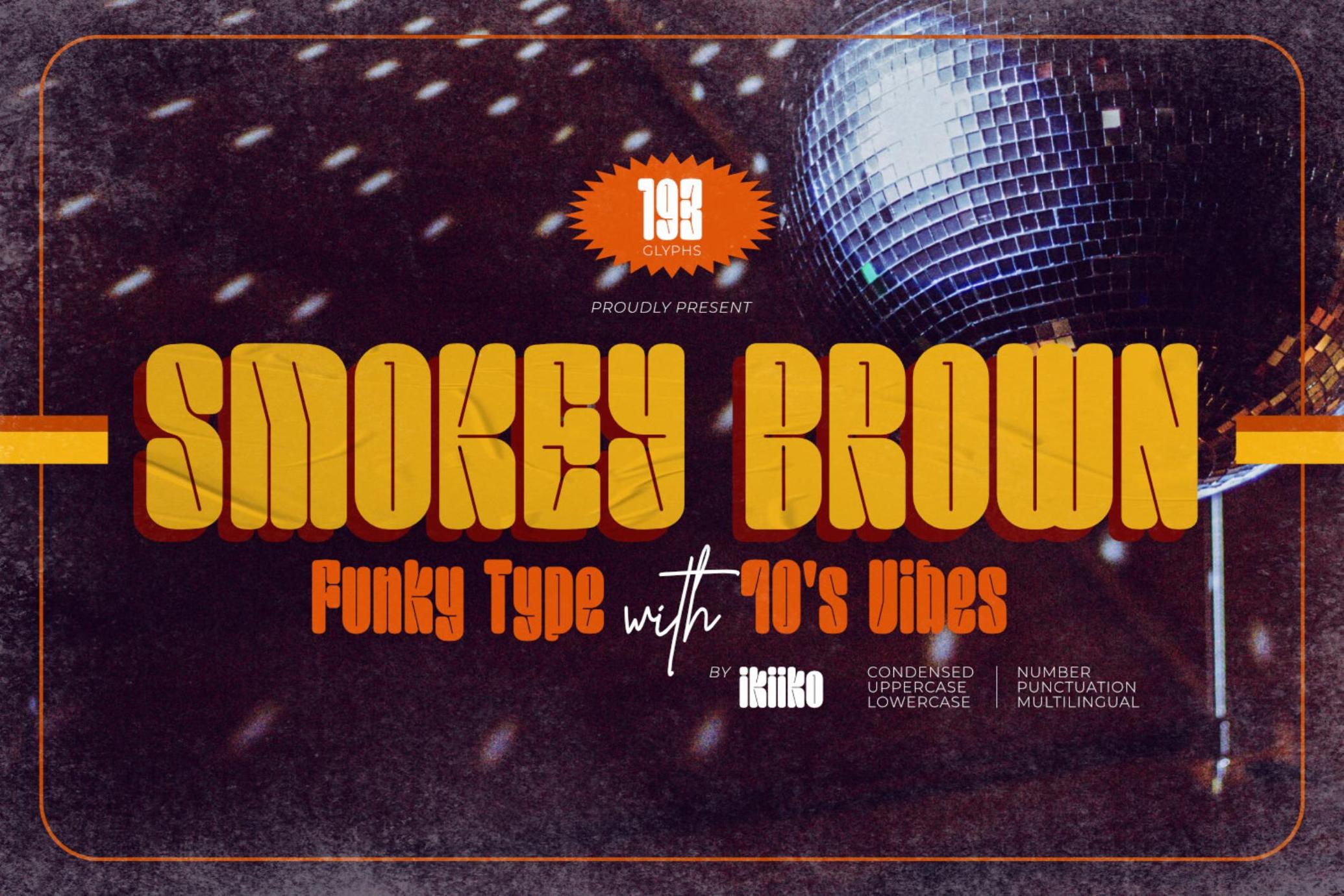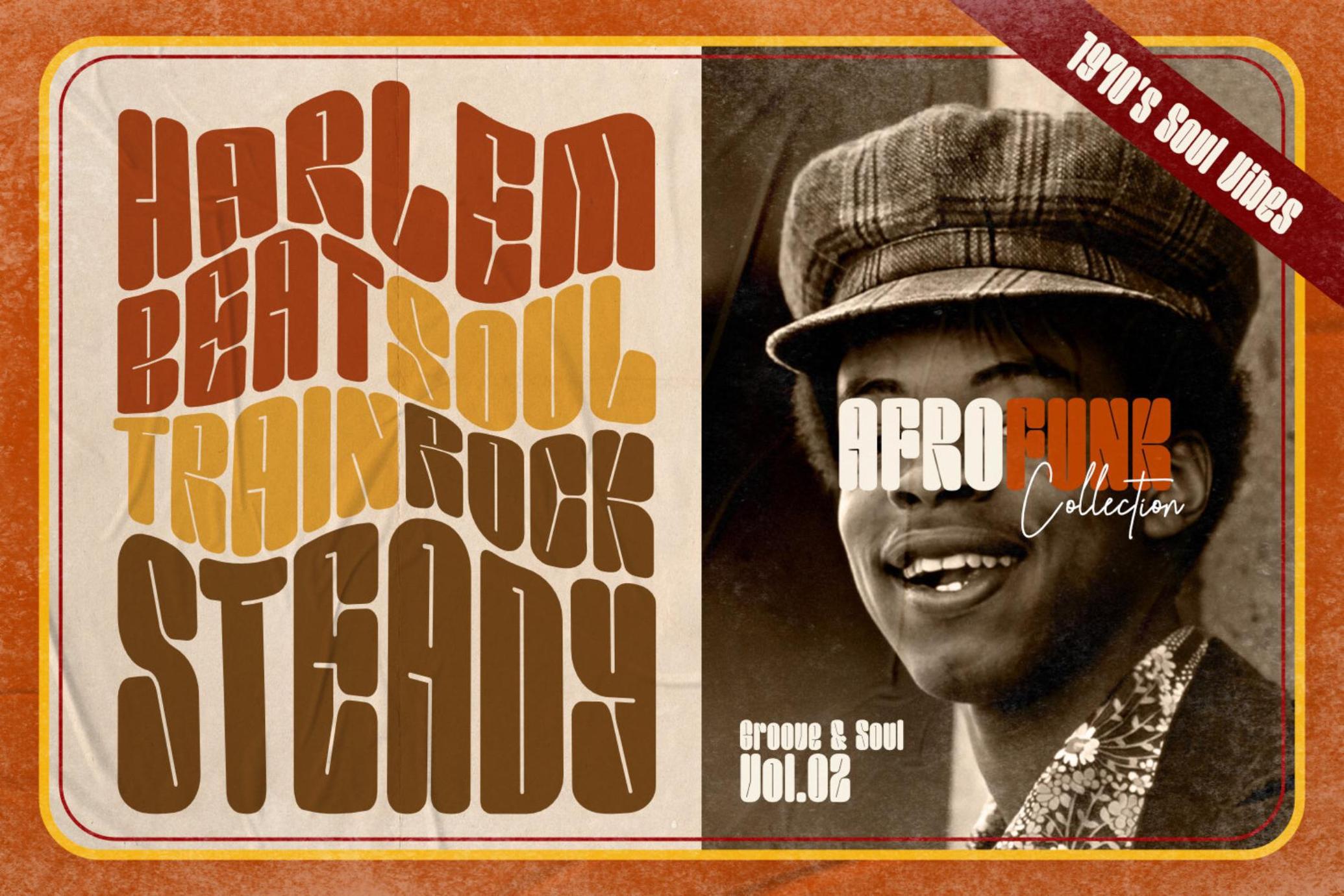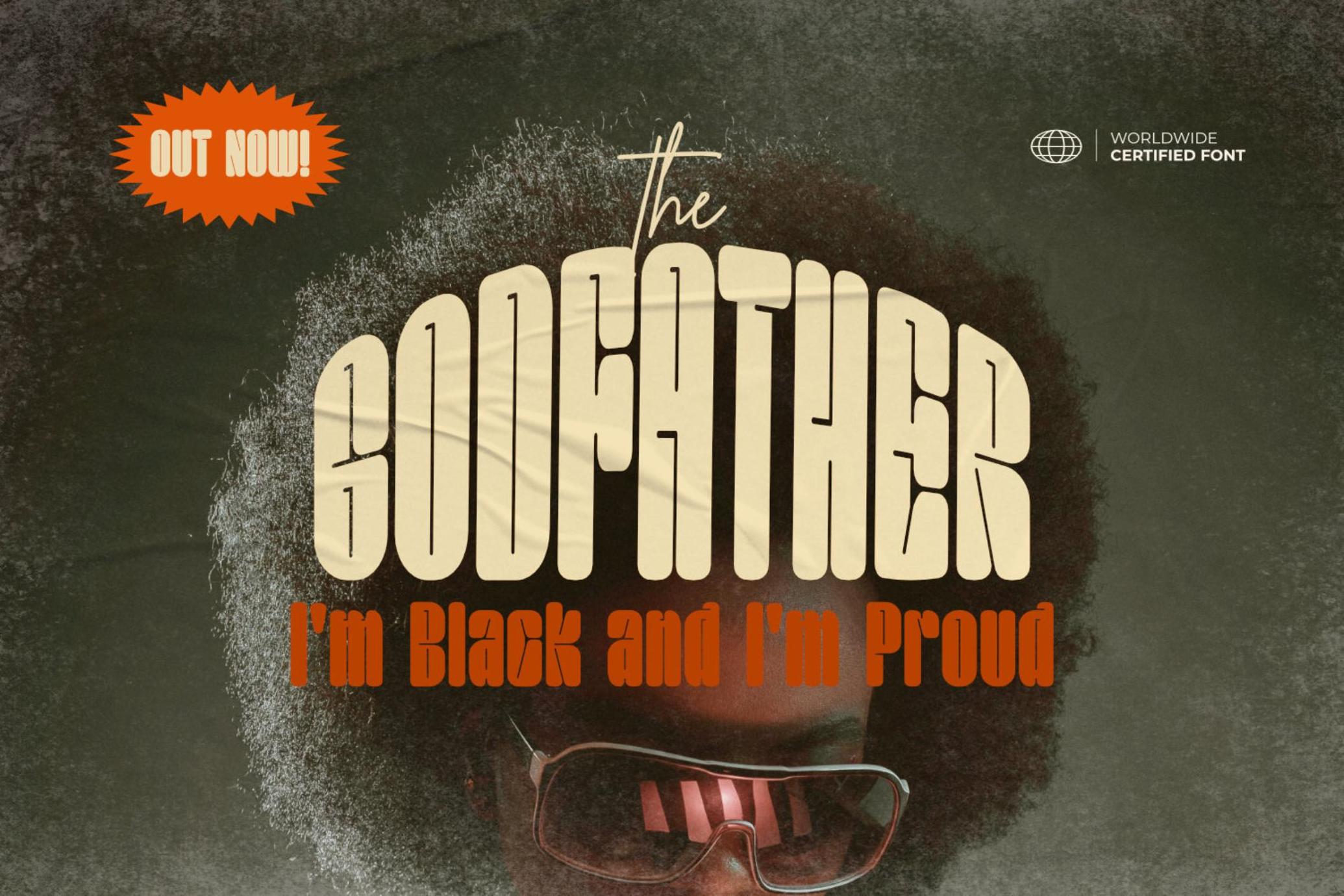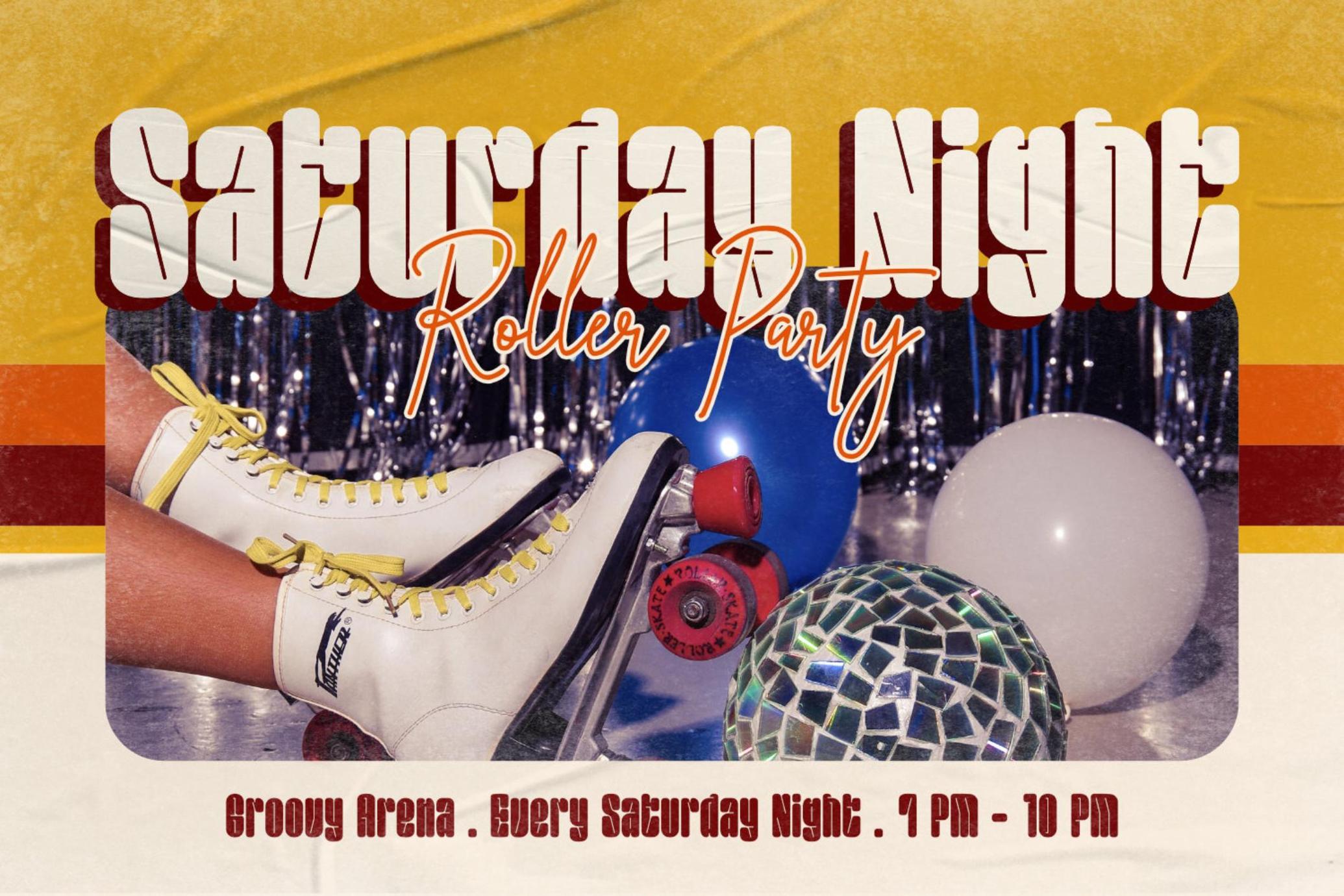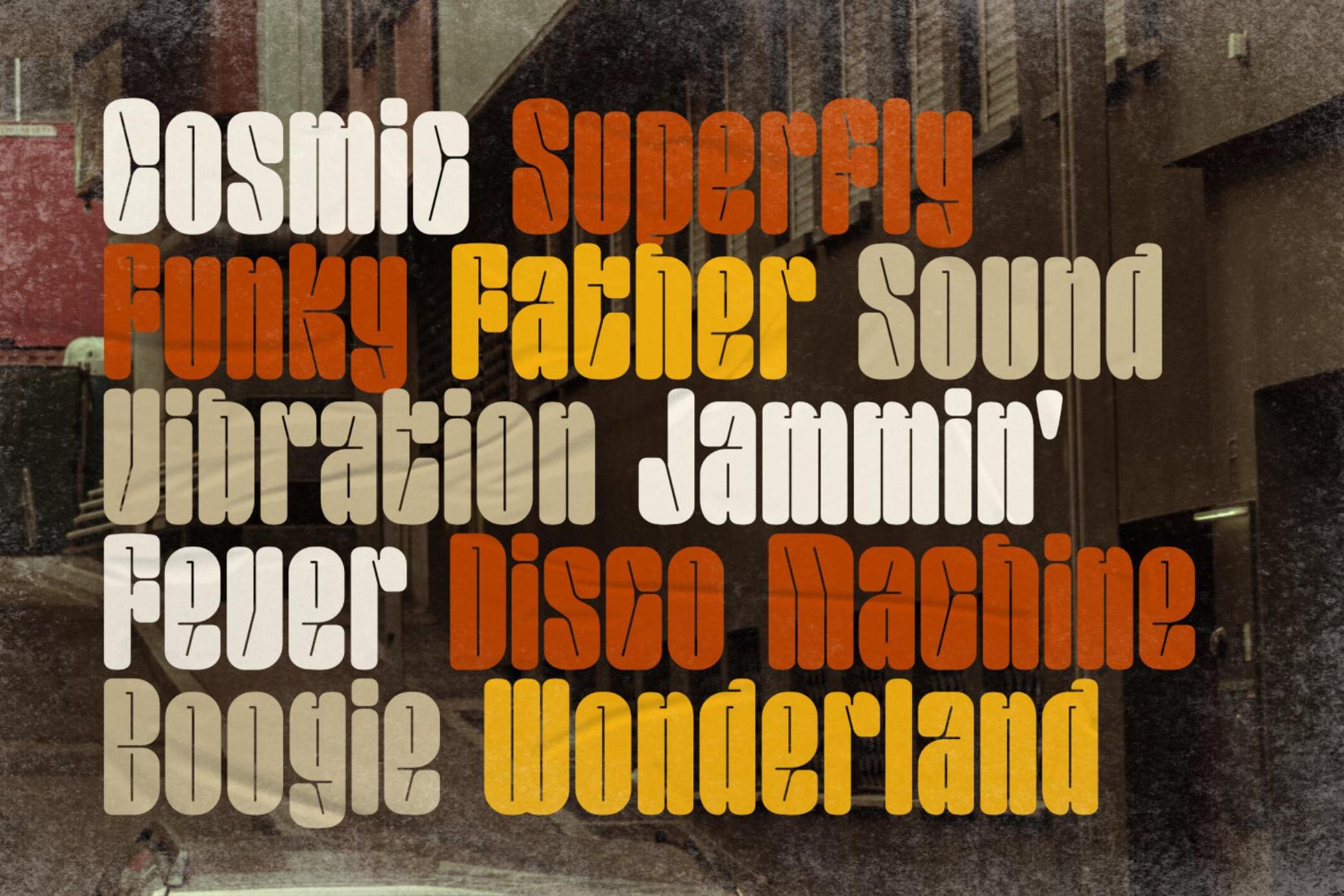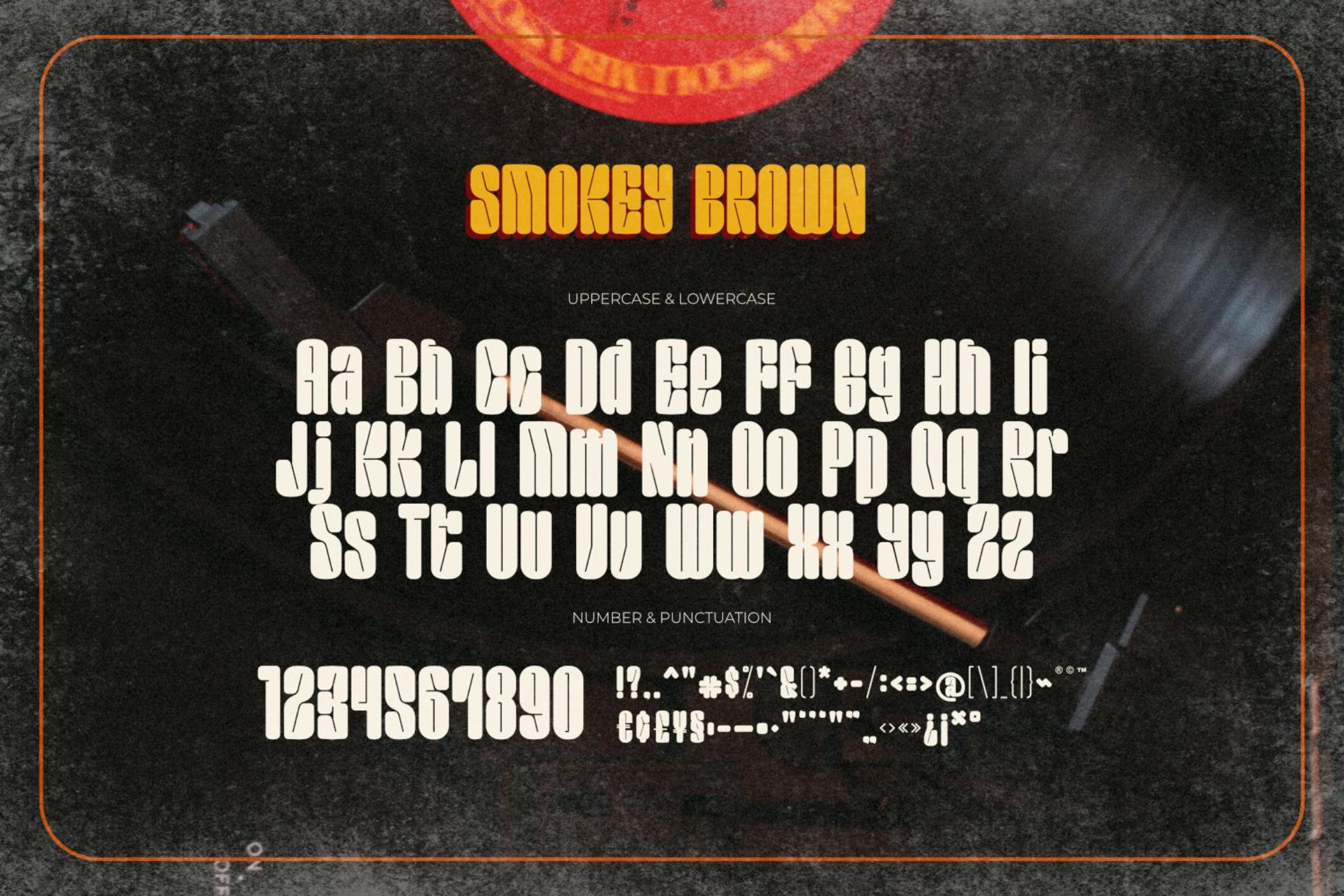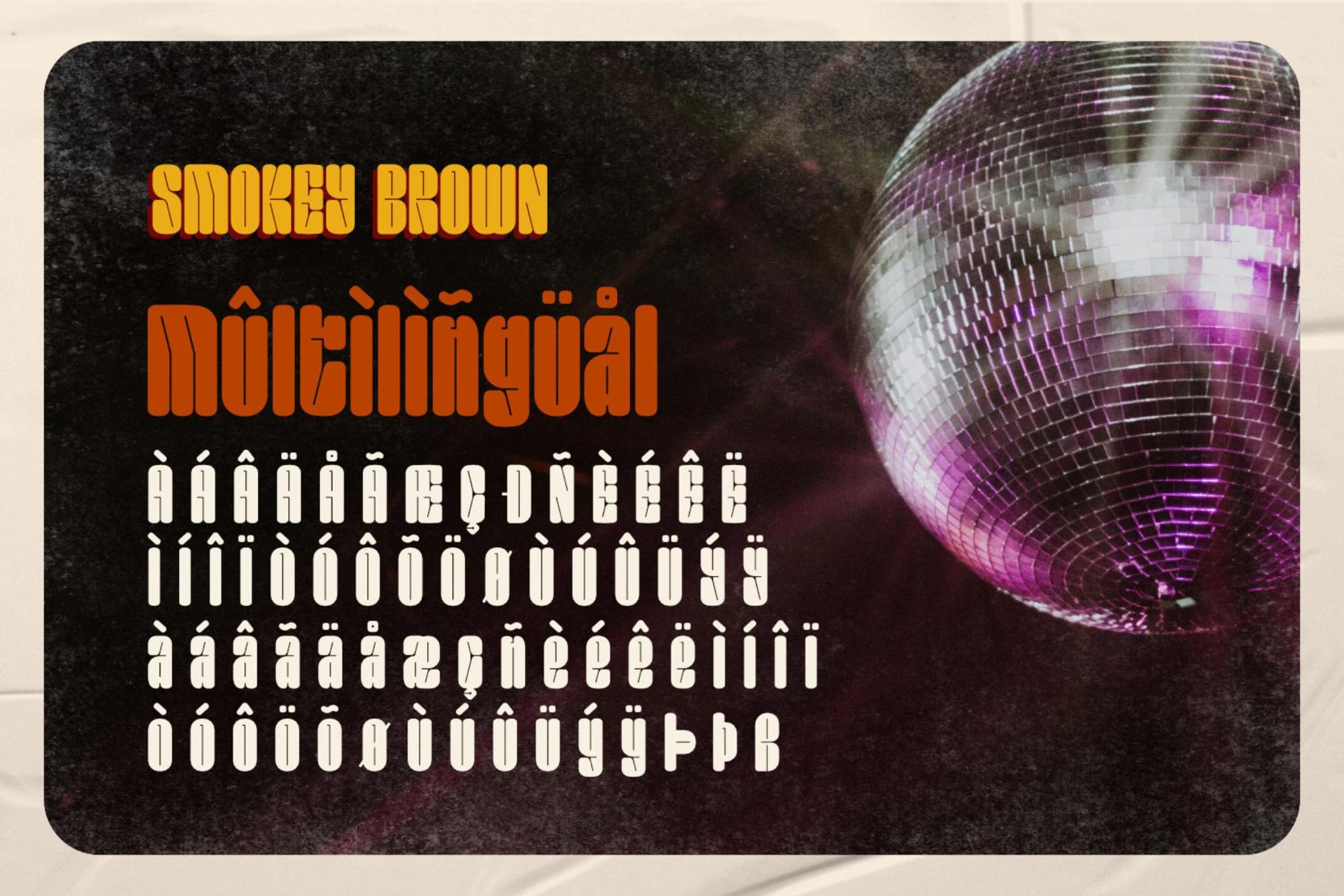
Smokey Brown - Funky Font
Smokey Brown is inspired by the 70's funk & soul vibes . Is a distinctive and vibrant style of typography that emerged during the 1970s, primarily in the context of soul, funk, and disco. One feature that makes this font style distinctive is the use of bold letters with thin lines to form letters. Typography itself is fun and enjoyable. The letters can be played with by being stretched, bent, or distorted in various ways, giving the font a sense of movement and energy.
This type is very suitable while used in retro-themed designs or for projects that want to evoke a sense of nostalgia and retro vibes. Like a poster design, magazine layout, movie title, brand logo, quotes, or simply as a stylish text overlay to any background image.